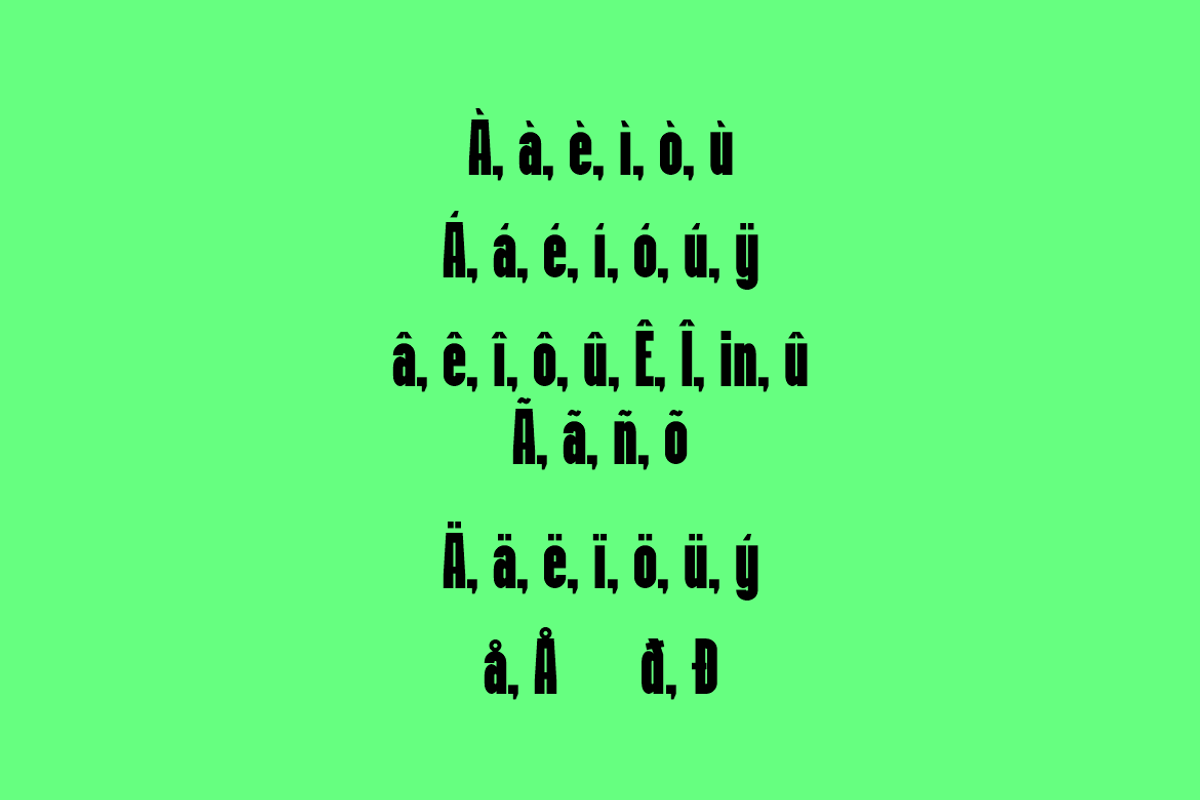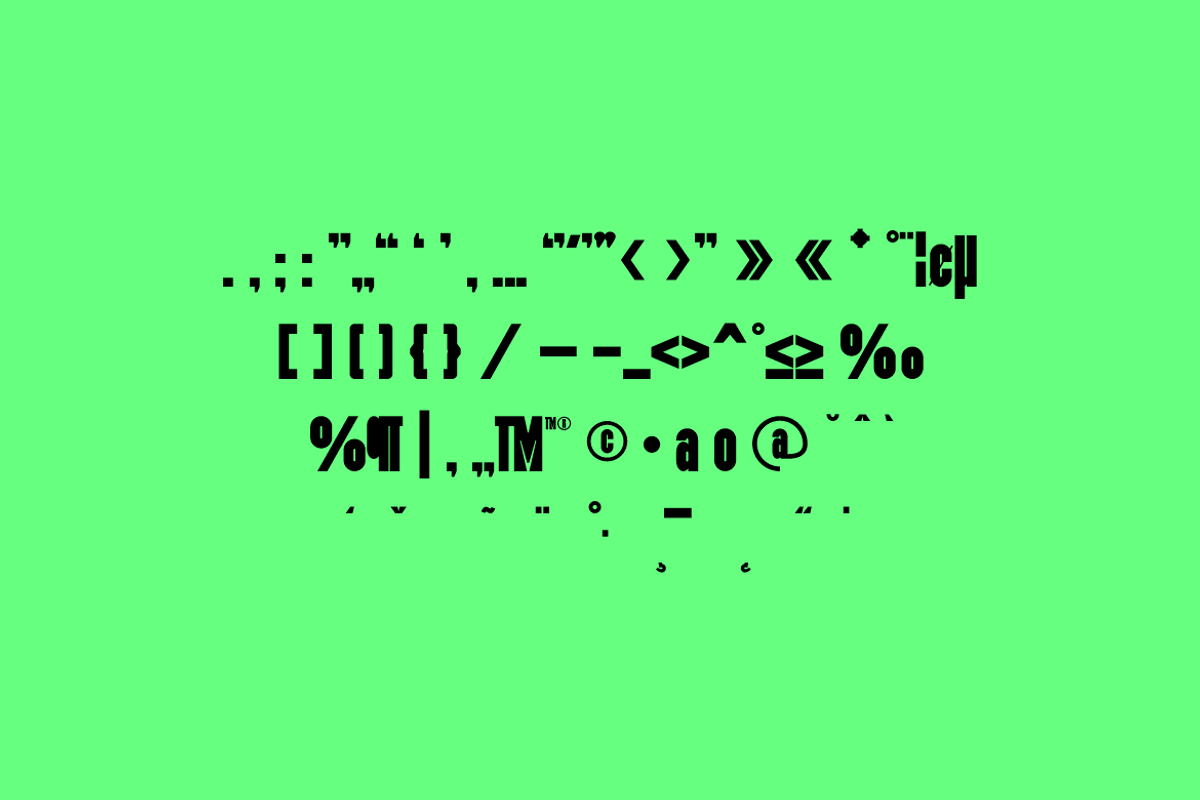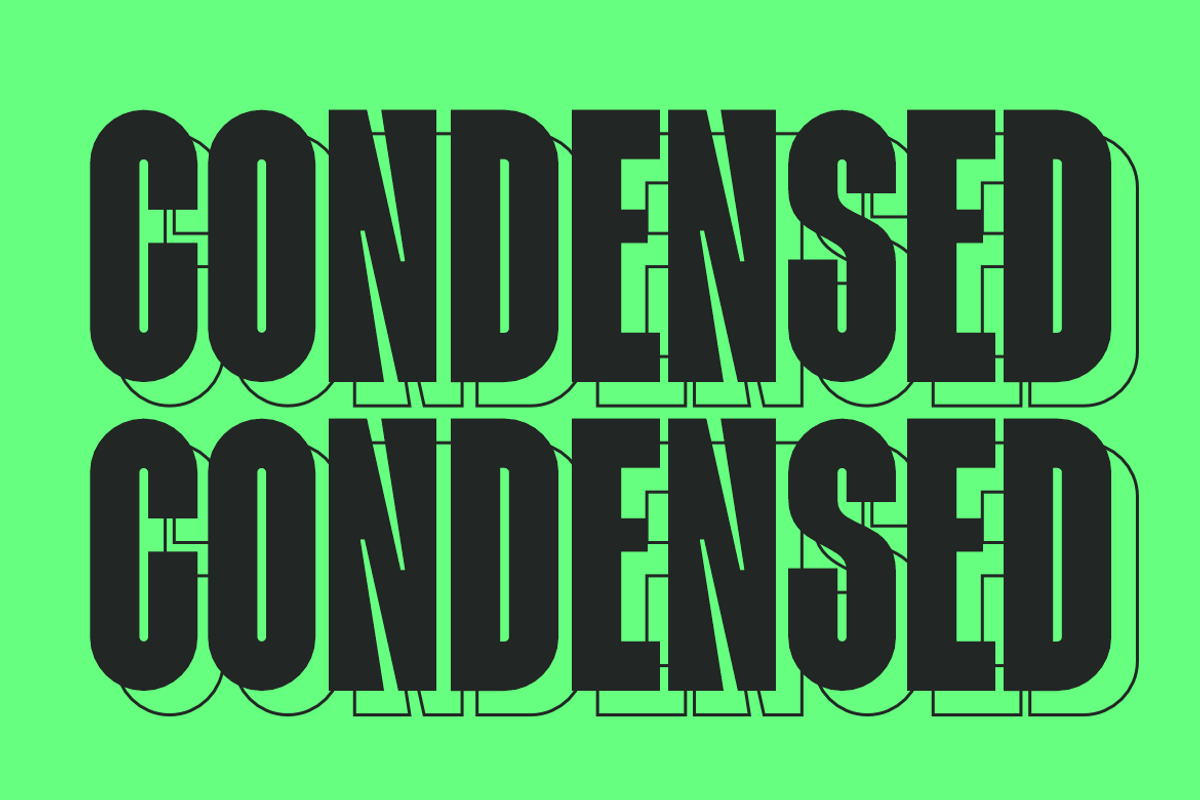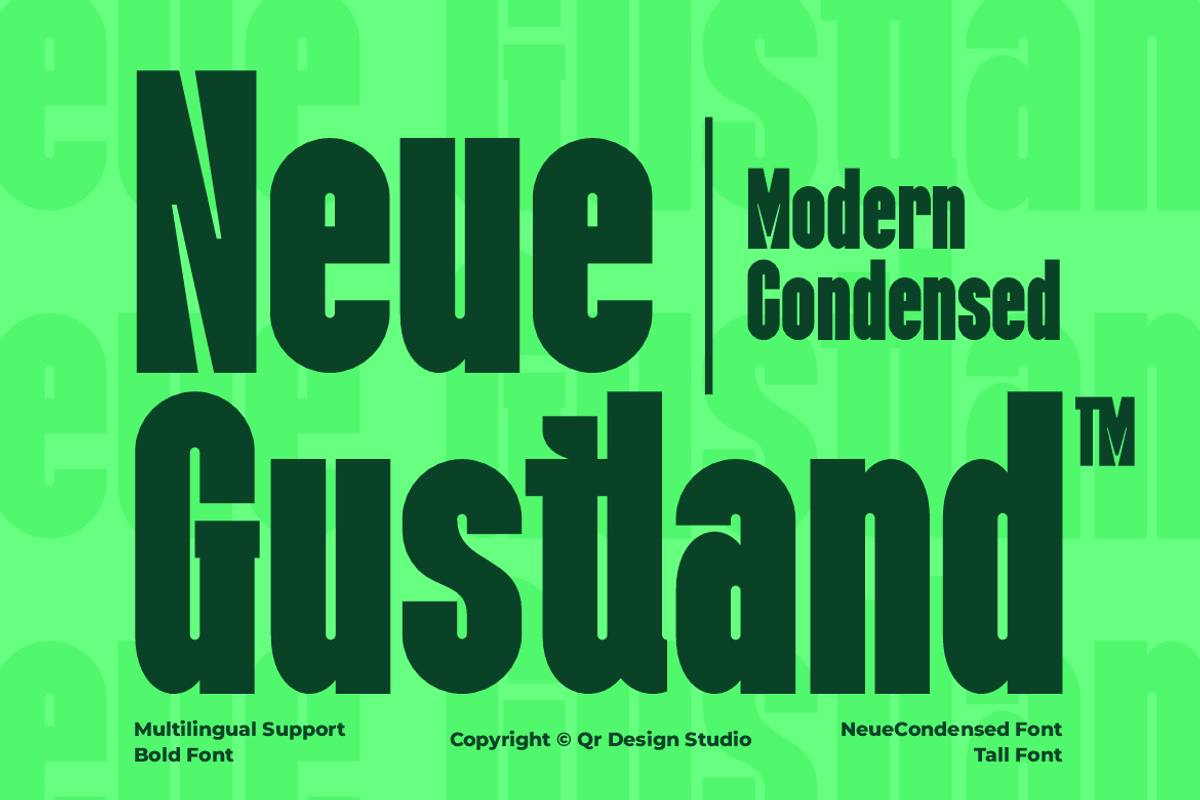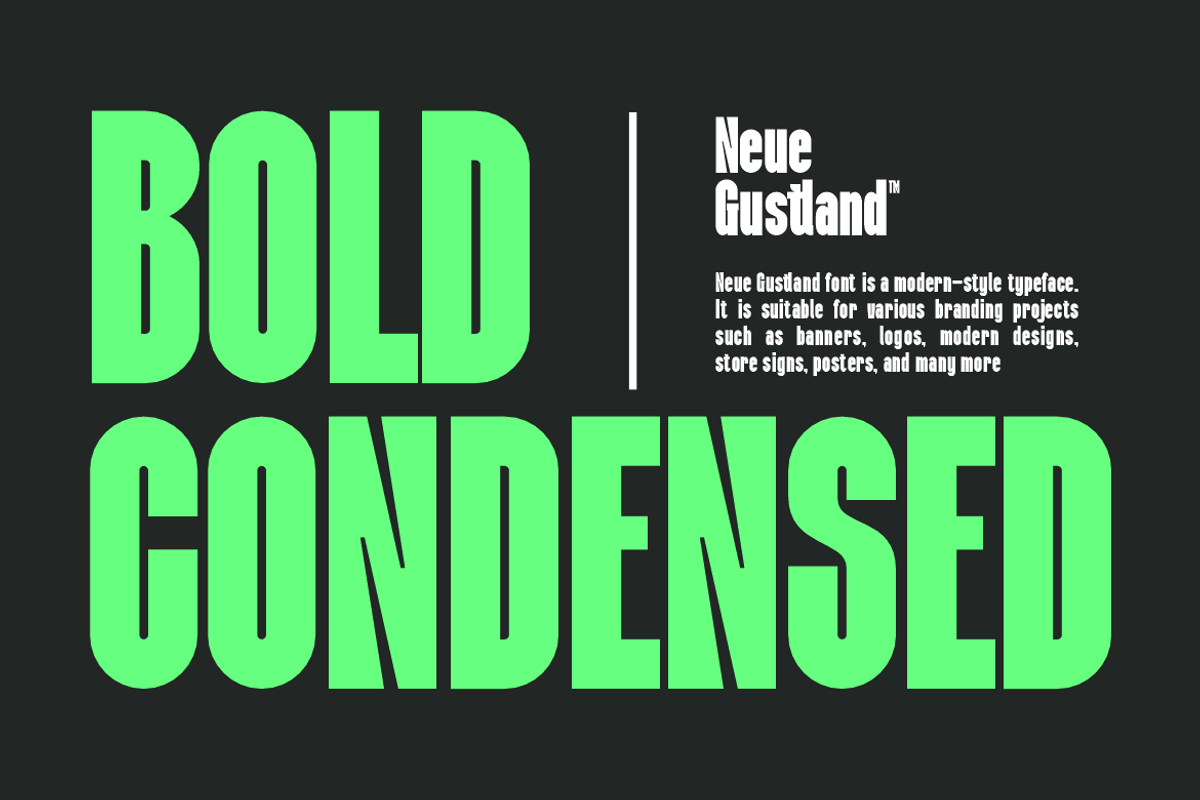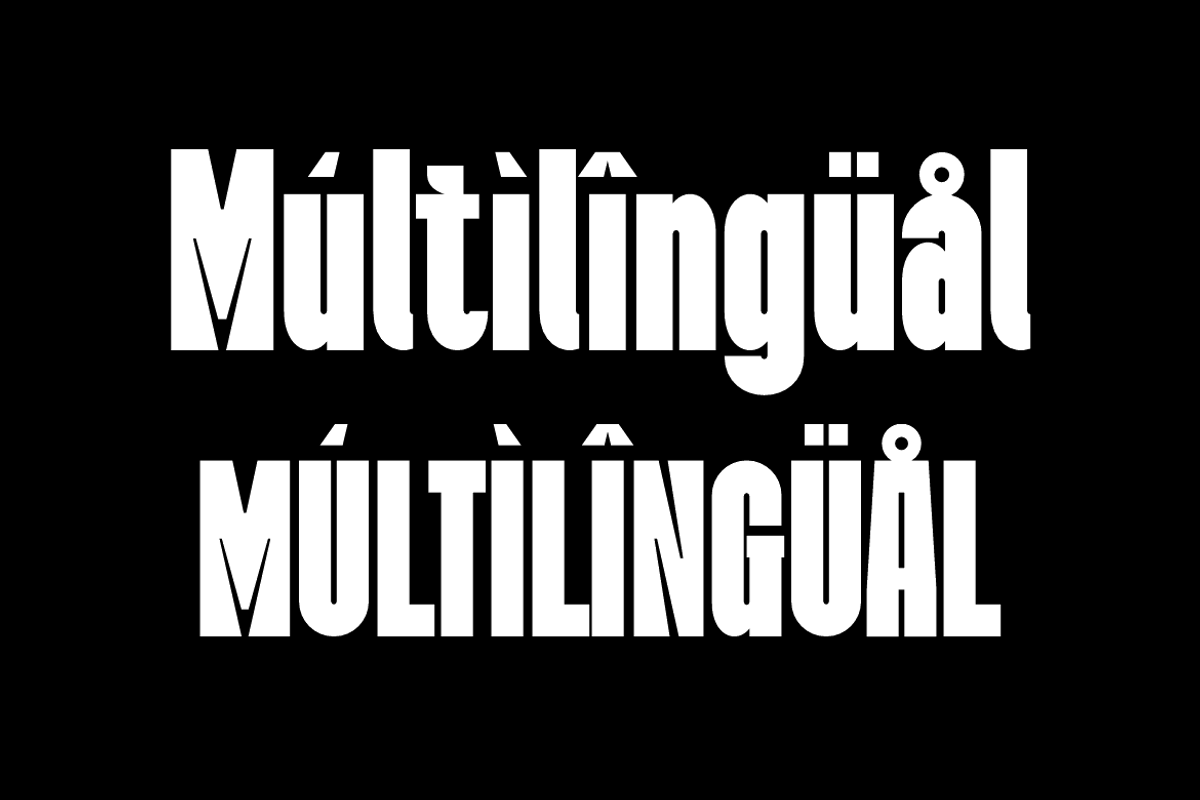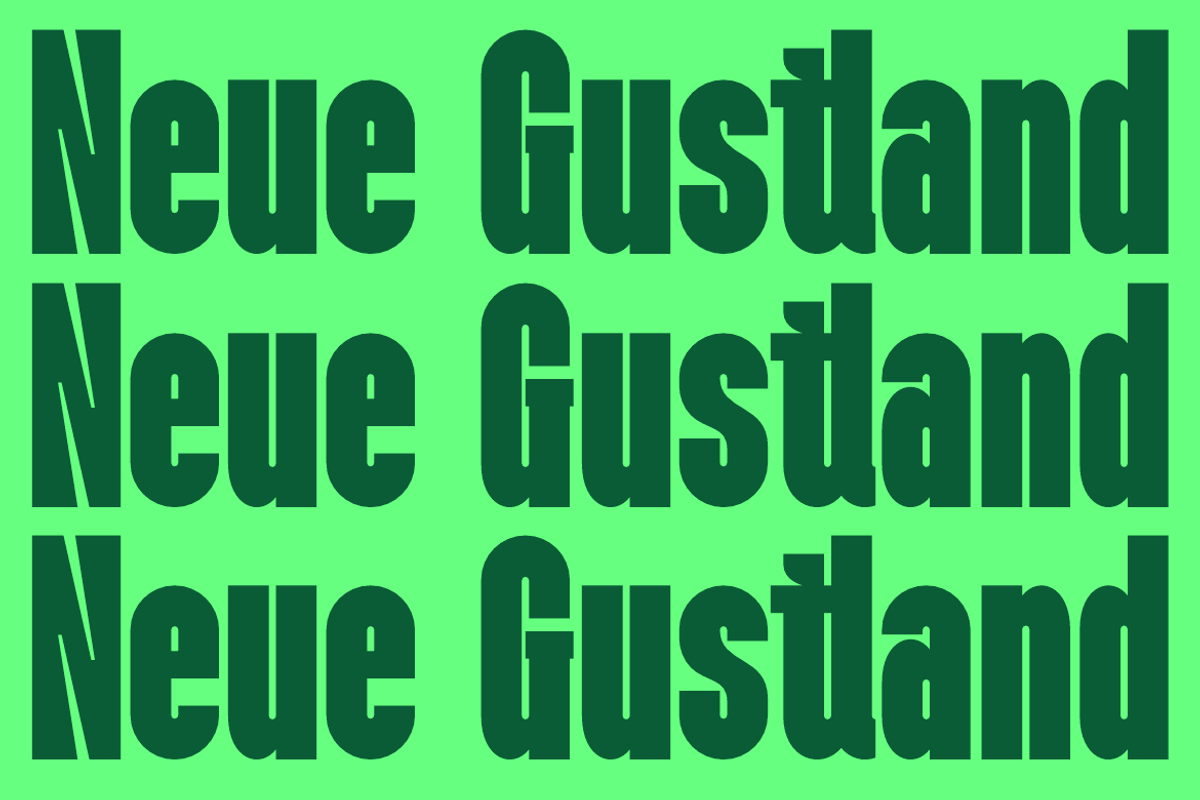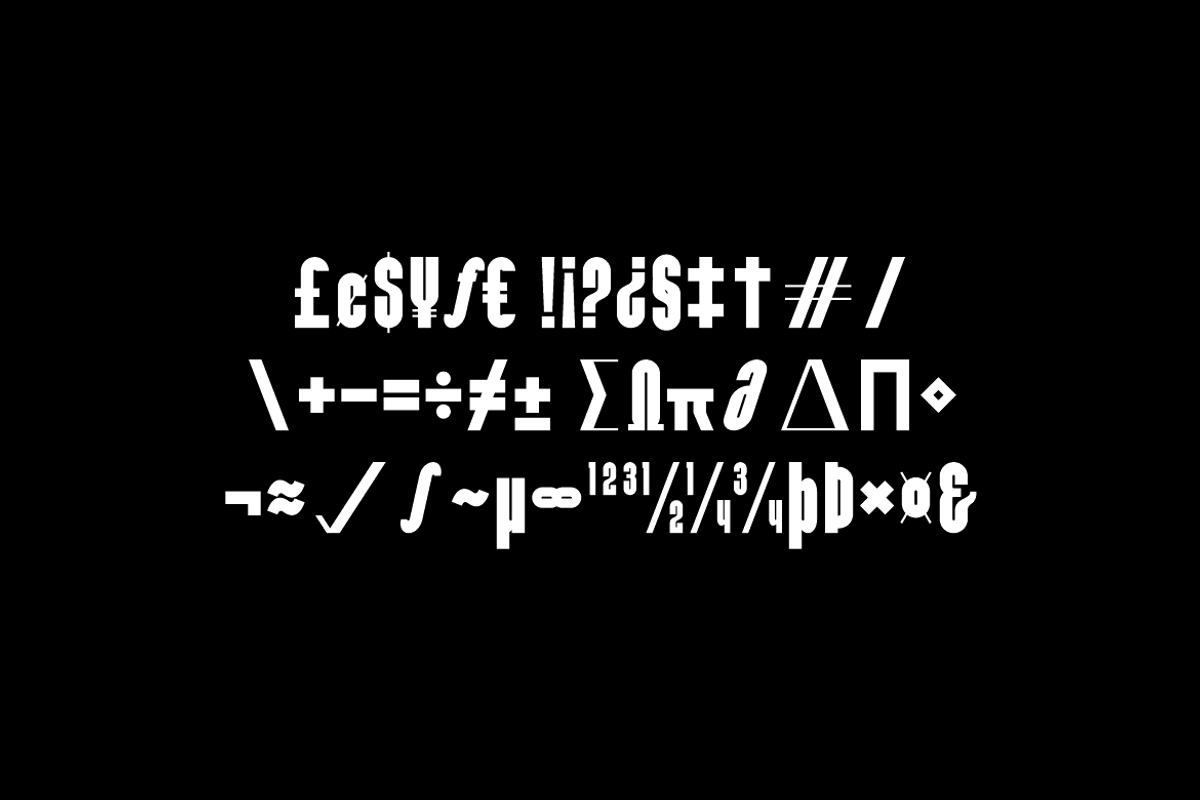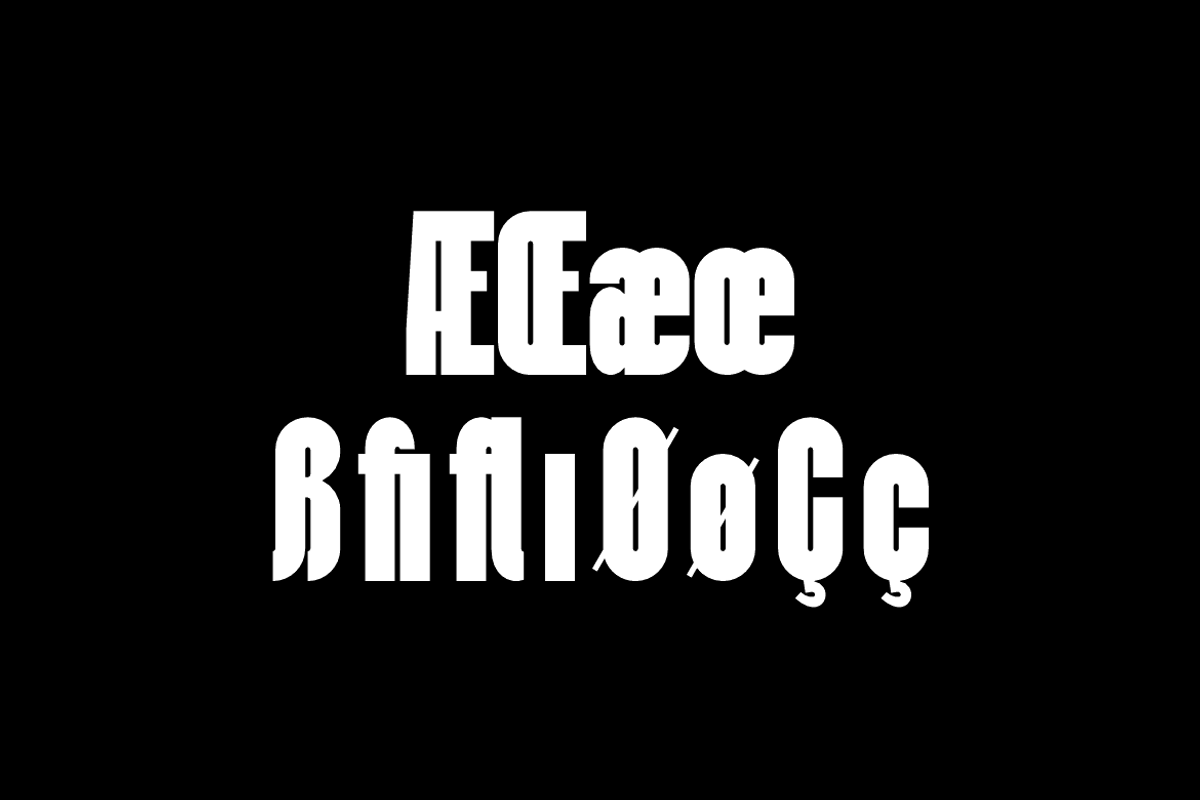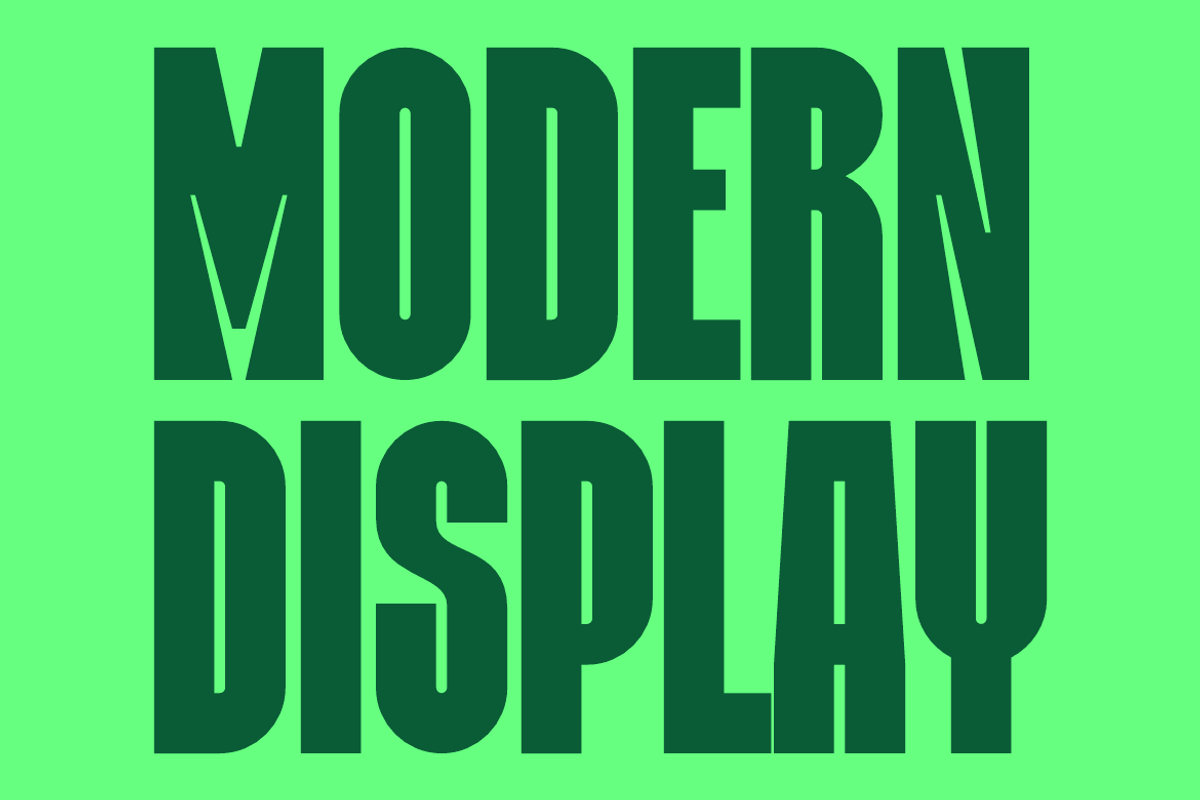
Neue Gustland Modern Condensed Font
Neue Gustland Font is a bold and authentic display typeface.
It’s perfect for various branding projects such as logos, modern designs,
and more. This font stands out beautifully in a wide range of contexts.